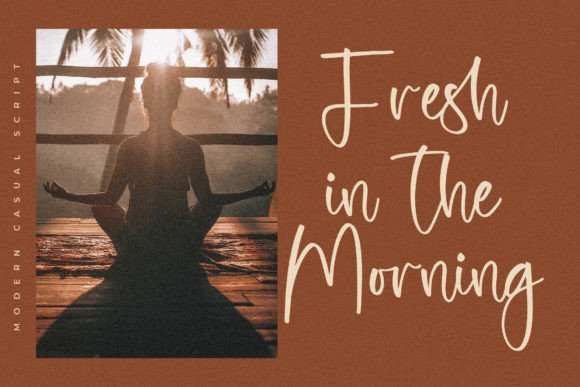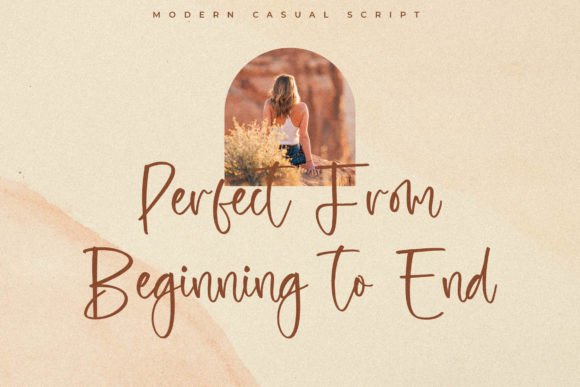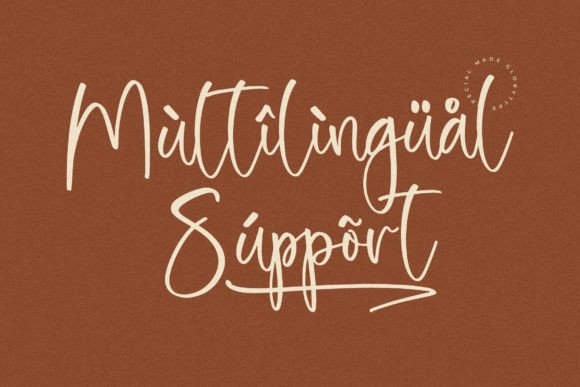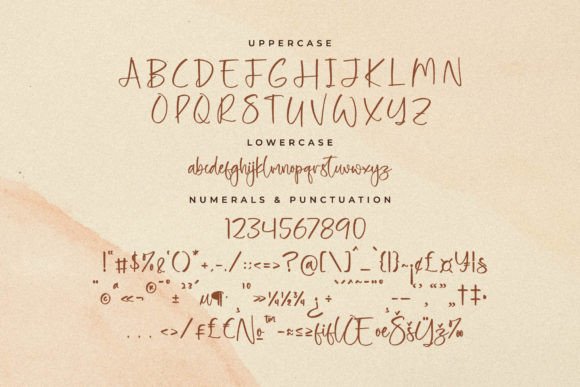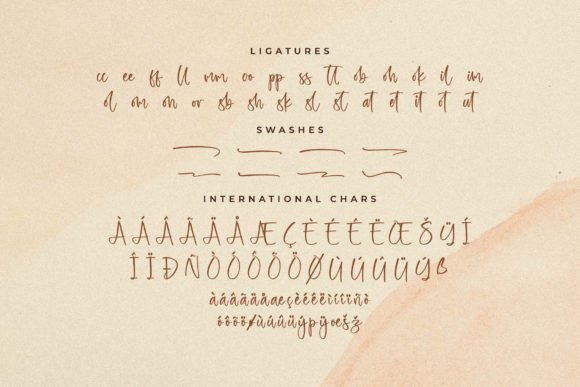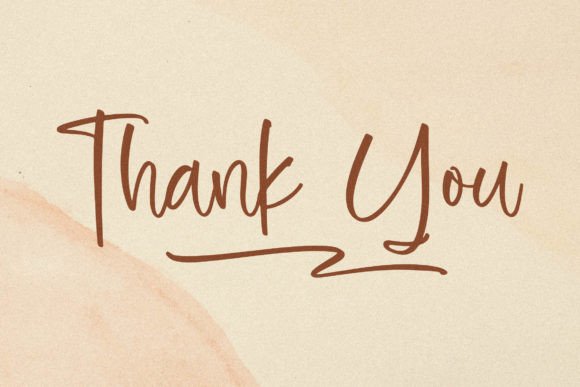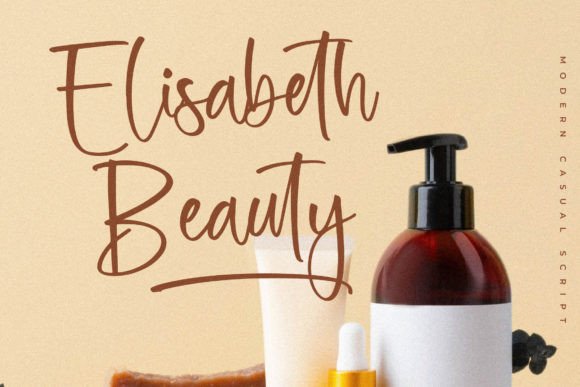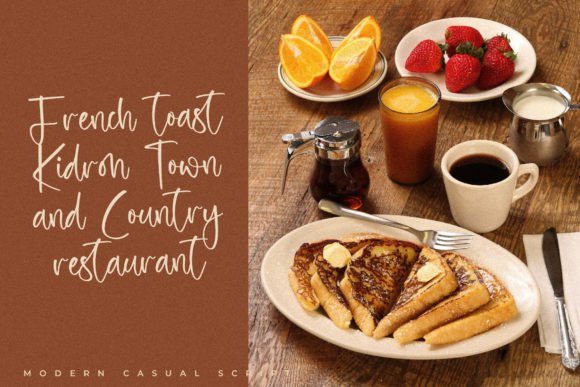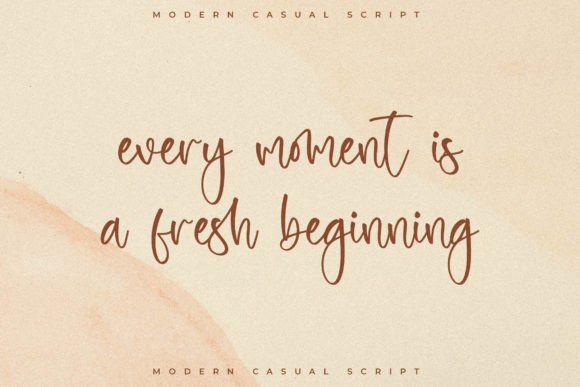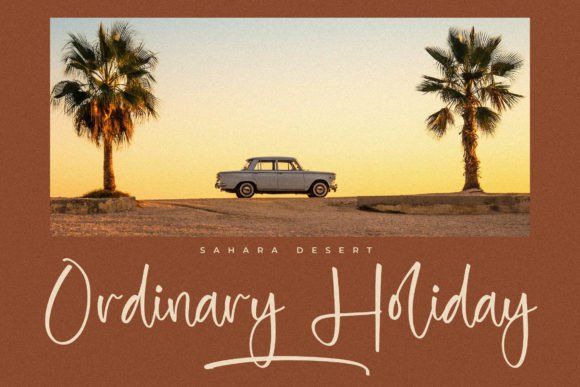
Holistway Font
About Holistway Font
Holistway Font is a modern casual script typeface designed to bring a fresh and stylish handwritten touch to your creative projects. Its smooth, flowing strokes make it ideal for a wide range of applications, from logos and branding to product packaging and event invitations. Holistway adds a lively and elegant flair that helps your designs feel personal and engaging.
Modern Casual Style with Versatility
Holistway features a casual yet polished style that balances modern trends with handwritten charm. The font’s clean and dynamic letterforms offer both readability and aesthetic appeal, making it perfect for designers seeking a versatile script font.
Ideal Uses for Holistway Font
This font shines in various design contexts, including:
• Logos and brand identities
• Homeware and product packaging
• Mugs, t-shirts, and merchandise
• Posters, flyers, and shopping bags
• Book covers, name cards, and invitations
• Greeting cards and labels
• Photography watermarks and event materials
Its versatility ensures it fits well across different creative projects.
Why Choose Holistway Font?
Designers love Holistway for:
• Smooth, flowing handwritten strokes
• Casual yet elegant letterforms
• Versatility across print and digital media
These features make Holistway a practical and stylish choice.
Add Freshness and Personality to Your Designs
Typography shapes the mood of your work. Holistway adds warmth, modernity, and friendliness. Whether for branding, packaging, or invitations, this font helps your message connect with the audience.
In conclusion, Holistway Font is a modern and casual handwritten script that enhances your projects with style and personality. Ideal for logos, branding, apparel, and more, Holistway is a valuable addition to any font collection.